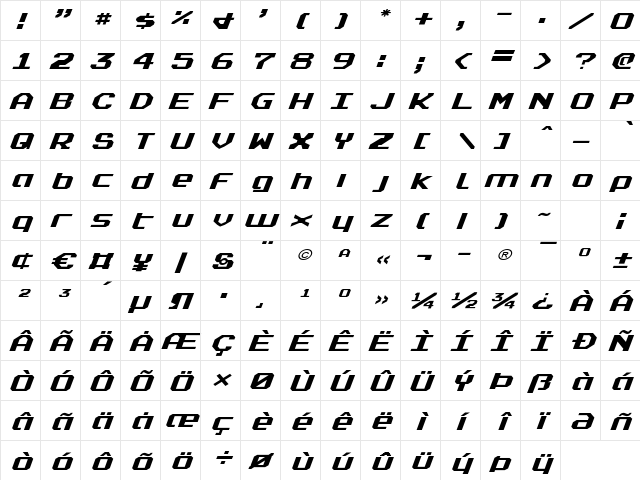
Realpolitik Expanded Italic Expanded Italic
Design Context for Realpolitik Expanded Italic Typeface
Realpolitik Expanded Italic offers clean, dependable letterforms without strong stylistic allegiance, making it a practical choice for designers who need flexibility. The dynamic lean of this cut emphasises speed and emphasis in any layout.
Pro Tip: Try Realpolitik Expanded Italic for annotation and caption copy alongside an upright companion — the contrast in angle creates a dynamic but ordered typographic system.